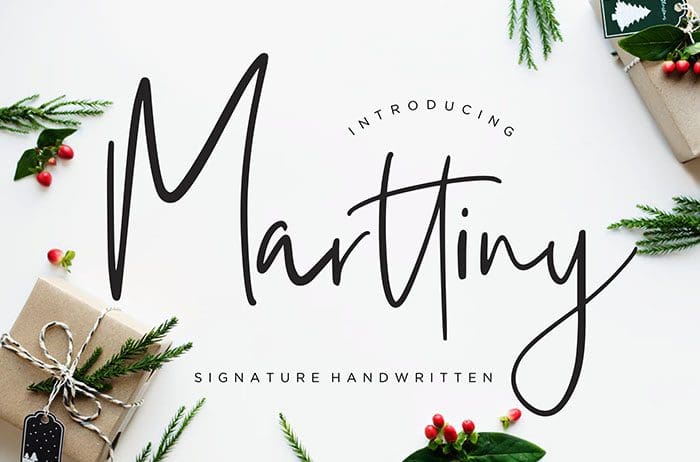
Marttiny Handwritten Font
Marttiny is a signature handwritten font with smooth movement and classy style. Marttiny is perfect for logo, invitation, and more. Thanks to Creatype Studio for sharing this font! Take a look at this portfolio for more of his stunning fonts.